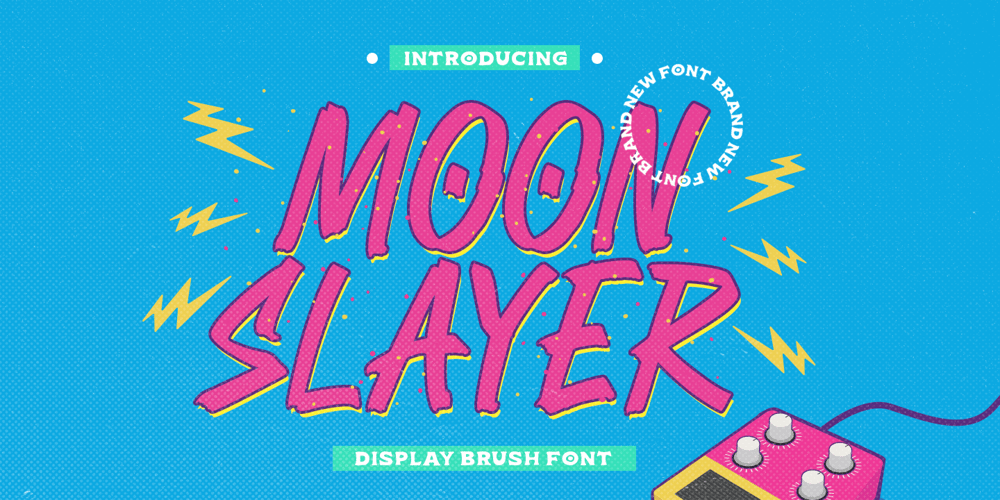
Moon Slayer
Moon Slayer font
Moon Slayer Font Family was designed by Hendry Juanda and published by Letterhend. Moon Slayer contains 1 styles and family package options. Moon Slayer is a display brush script font with fun and pop feel. The strokes make this font outstanding and looks great for title. This type of font perfectly made to be applied especially in logo, headline, signage and the other various formal forms such as invitations, labels, logos, magazines, books, greeting / wedding cards, packaging, fashion, make up, stationery, novels, labels or any type of advertising purpose.Features : numbers and punctuation multilingual alternates / swashes and ligatures PUA encoded We highly recommend using a program that supports OpenType features and Glyphs panels like many of Adobe apps and Corel Draw, so you can see and access all Glyph variations.